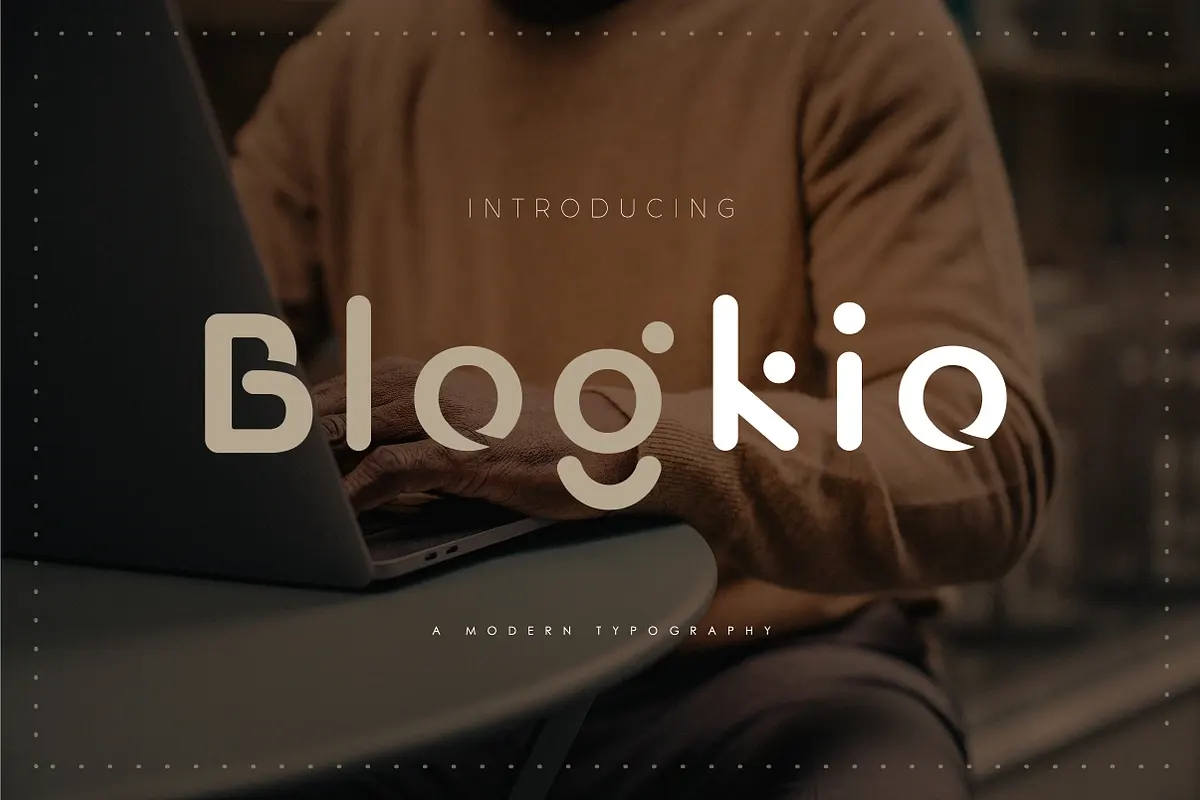
Blogkio Font Free Download is a modern and clean typeface designed to add sophistication and style to your digital and print projects. With its sleek lines, contemporary feel, and subtle rounded edges, this font is perfect for blog designs, websites, logos, social media graphics, and any project that requires a sleek, professional look.
The balance between readability and modern aesthetic makes Blogkio an excellent choice for both professional and creative uses. It is versatile enough to be used for headers, body text, or even branding, making it ideal for web-based designs and digital marketing content.
Add a polished, modern touch to your designs with the elegant simplicity of Blogkio!